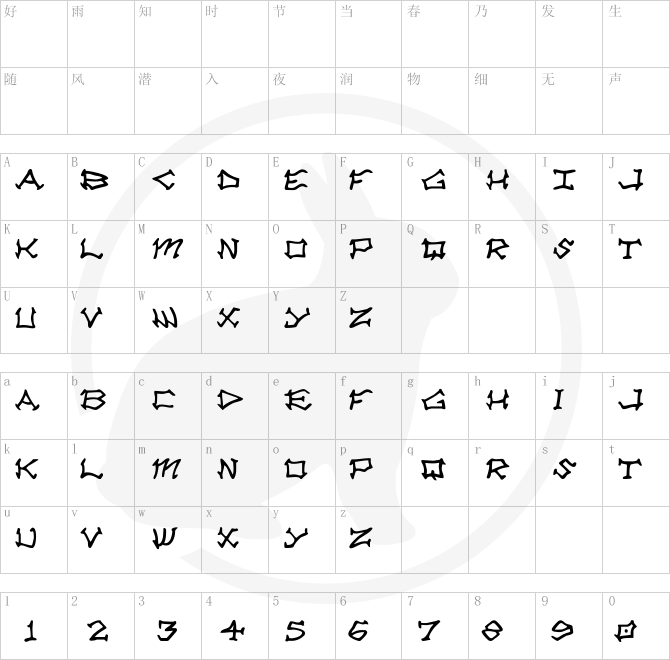
• Font Name:Rad Zad
Rad-Zad.ttf is a very beautiful artistic font, Rad-Zad.ttf is widely used in the design and printing of various books and pictures,Rad-Zad.ttf has a strong visual impact,Rad-Zad.ttf is a commonly used font in newspapers, magazines and books, and is used in posters, e-commerce Poster design, store design, logo design, font design and other fields.Rad-Zad.